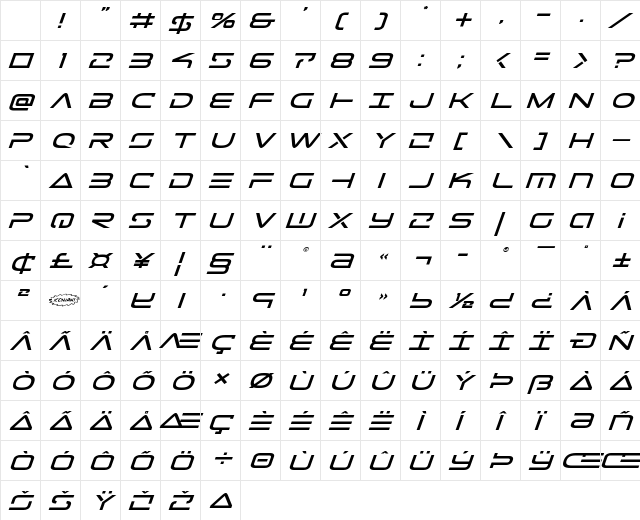
Complete Tele-Marines Expanded Italic glyph index. Displaying only characters natively supported by Tele-Marines Expanded Italic font.
Tele-Marines Expanded Italic is a composed and adaptable typeface that performs quietly and consistently across a wide range of design contexts. The slanted form adds forward momentum and visual energy.